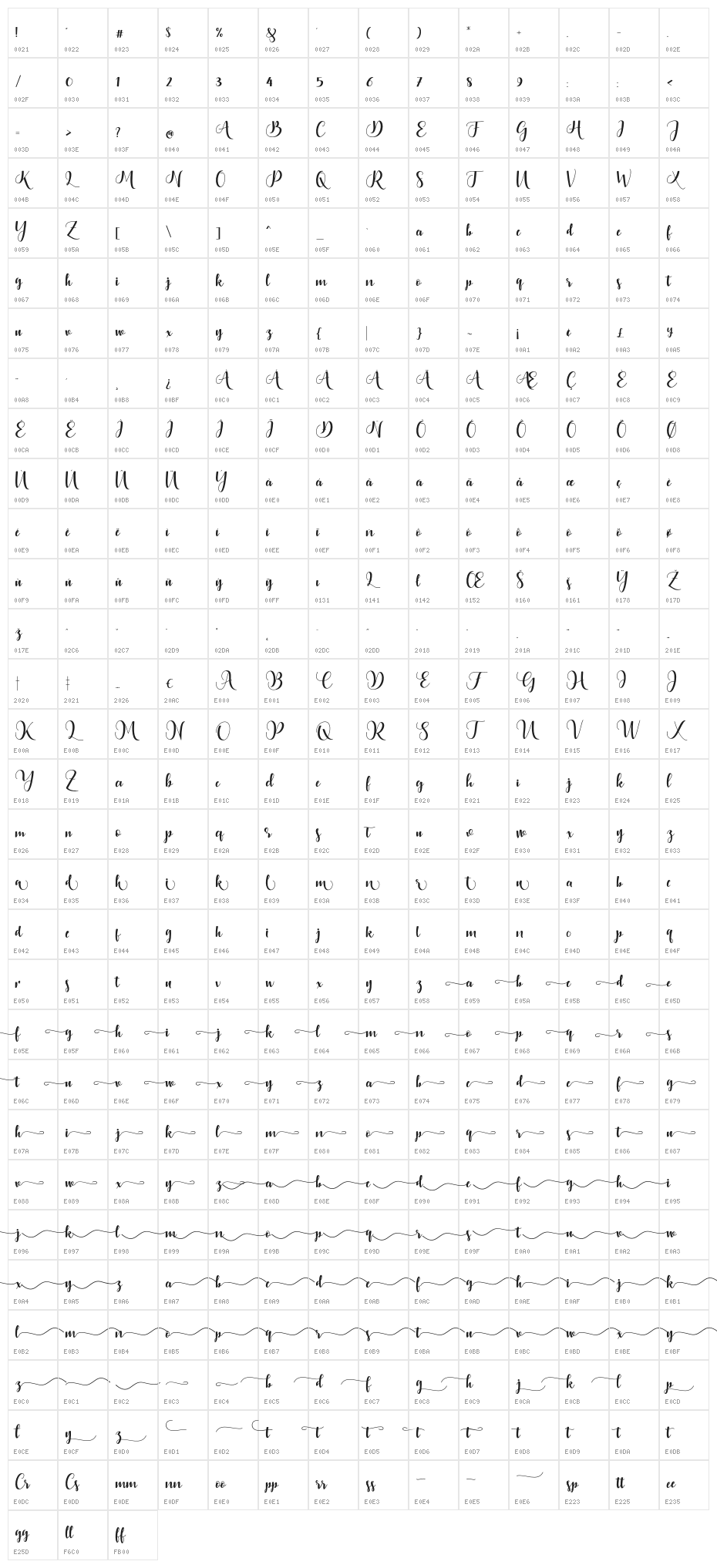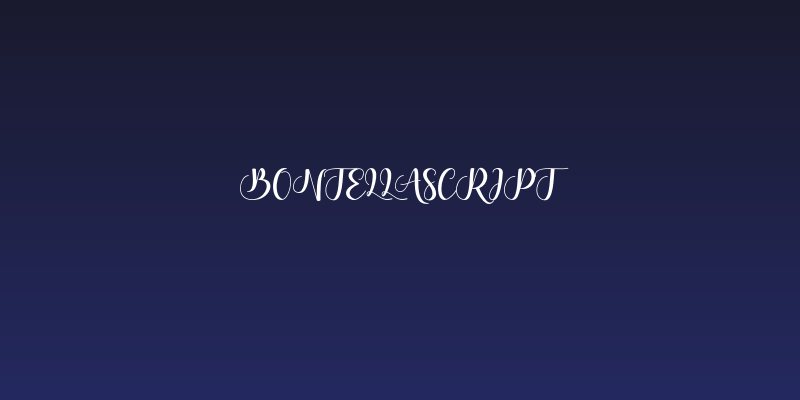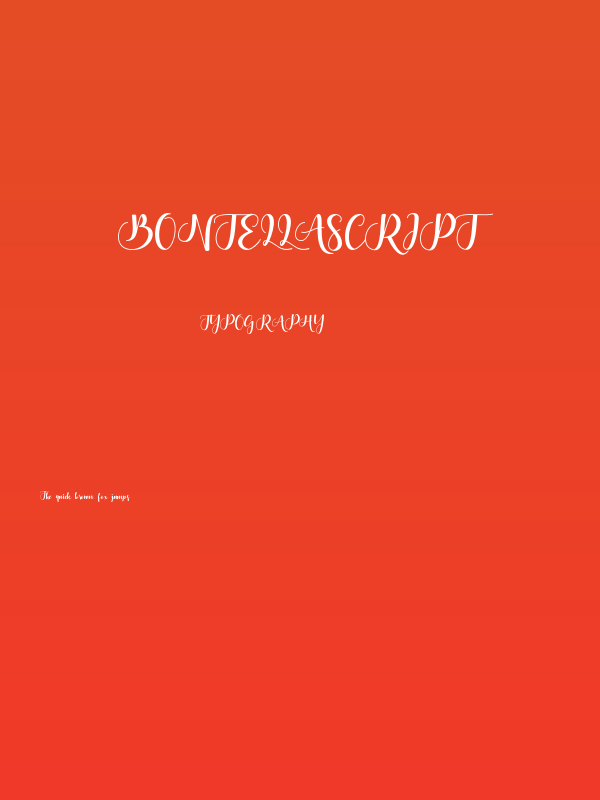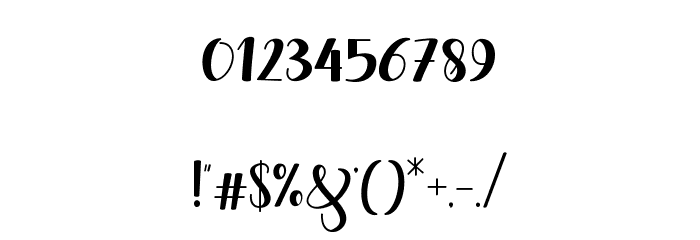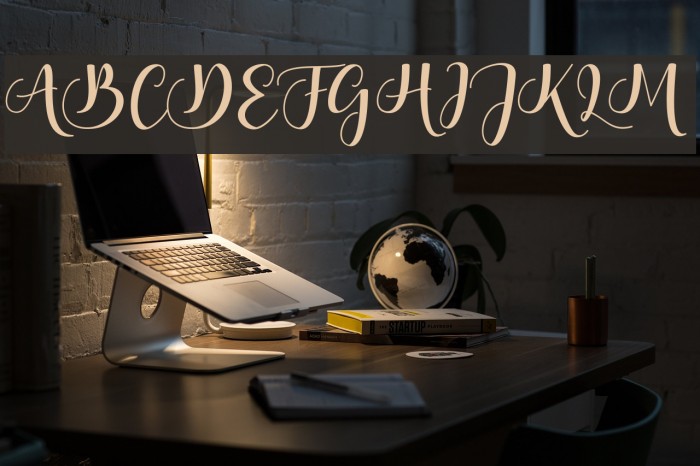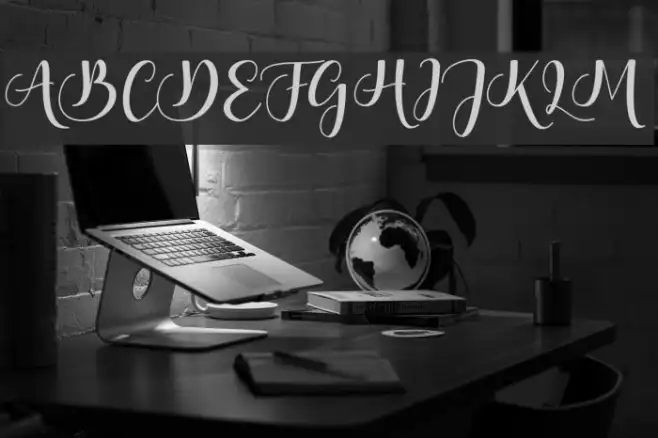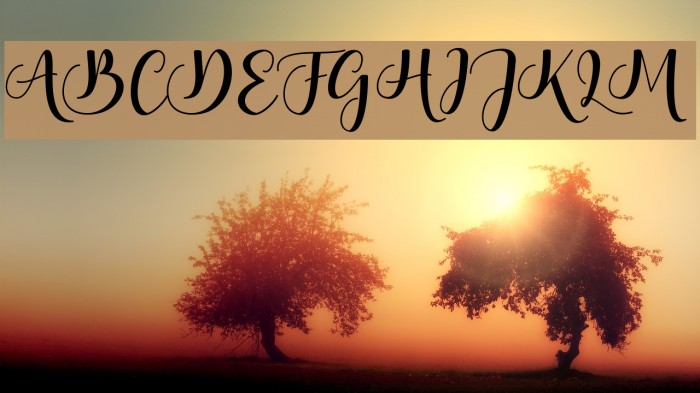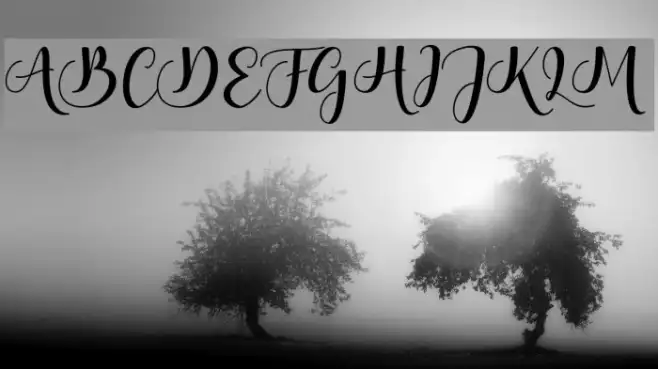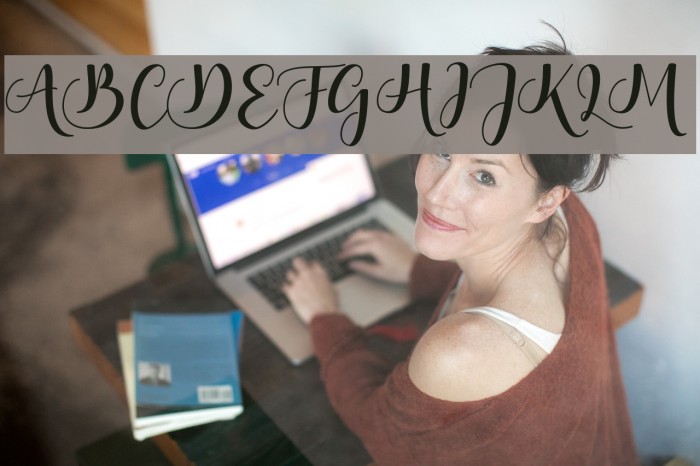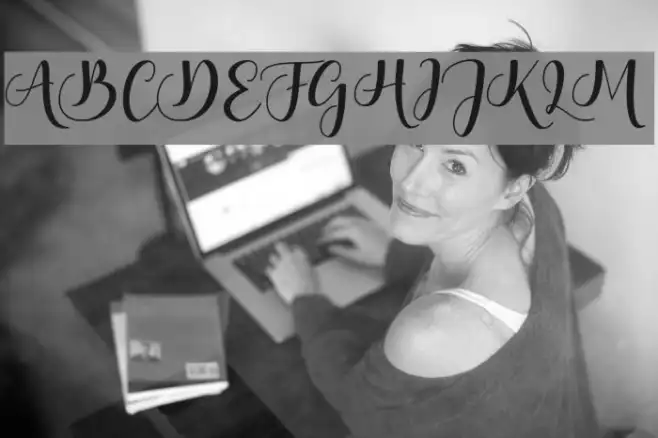
BontellaScript Font
BontellaScript Description
This font exudes elegance and sophistication with its flowing script style. The characters are intricately designed with smooth curves and flourishes, giving it a handwritten appearance. The uppercase letters are particularly ornate, featuring extended strokes and loops that add a touch of drama. The lowercase letters maintain a consistent style, with a slightly more subdued flair. The numerals and special characters are crafted to match the overall aesthetic, ensuring a cohesive look across all text. This font is perfect for projects that require a personal touch or a sense of luxury.
| Proposed Projects | Ideal for wedding invitations, luxury branding, greeting cards, and elegant packaging. |